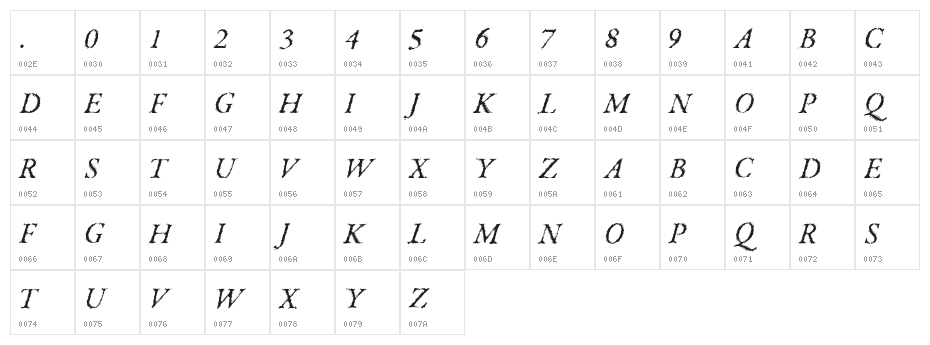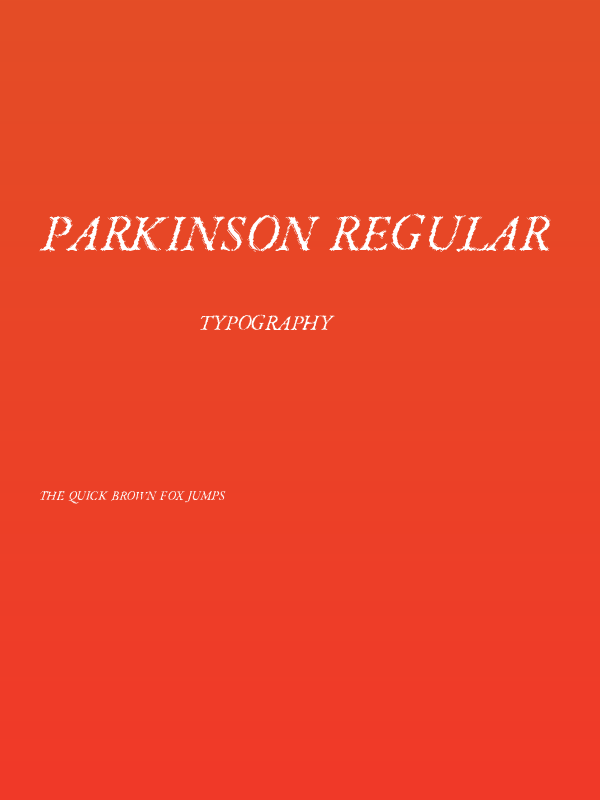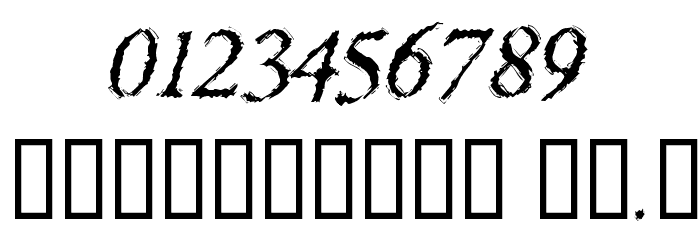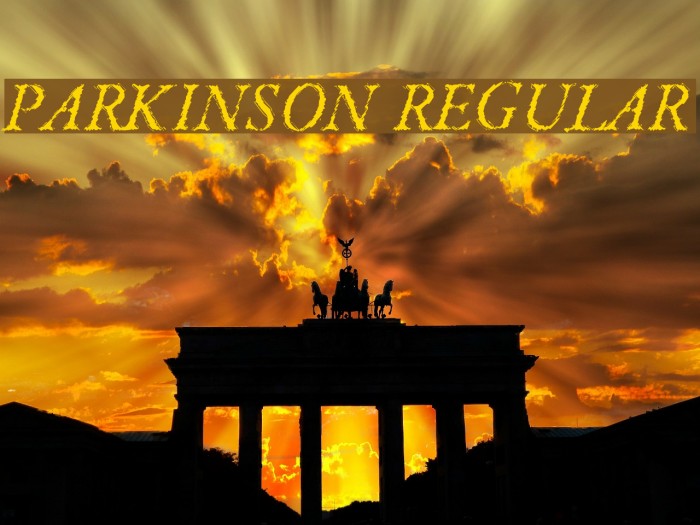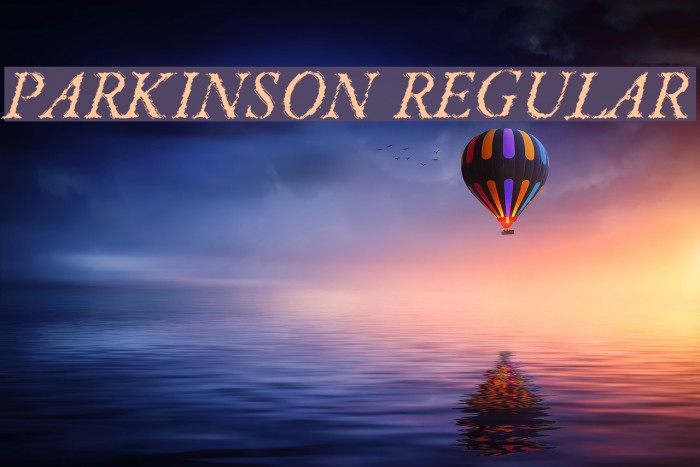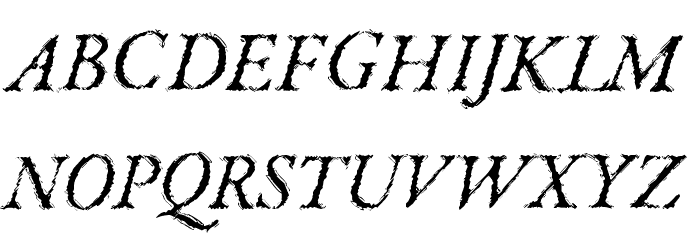
Parkinson Regular Font
Parkinson Regular Description
This font features a distinctive, textured appearance that mimics the look of brush strokes or ink splatters. The characters are italicized, adding a dynamic and energetic feel to the text. The uppercase and lowercase letters maintain a consistent style, with sharp edges and varying stroke widths that create a sense of movement. The numbers and special characters follow the same design principles, ensuring uniformity across all elements. This font is well-suited for projects that require a bold and artistic touch, such as posters, album covers, or branding materials.
| Proposed Projects | Ideal for artistic projects like posters, album covers, and branding materials. |